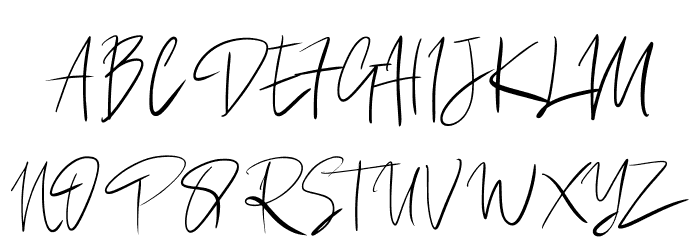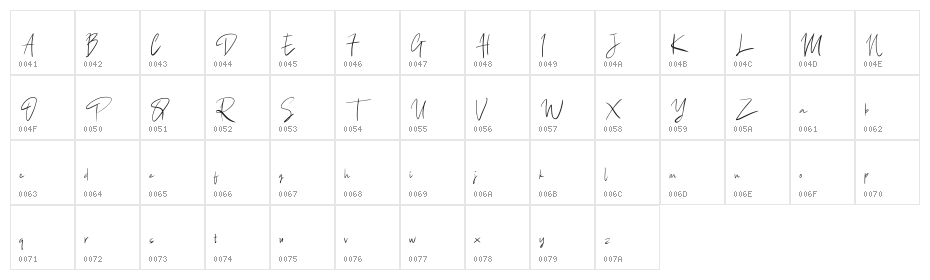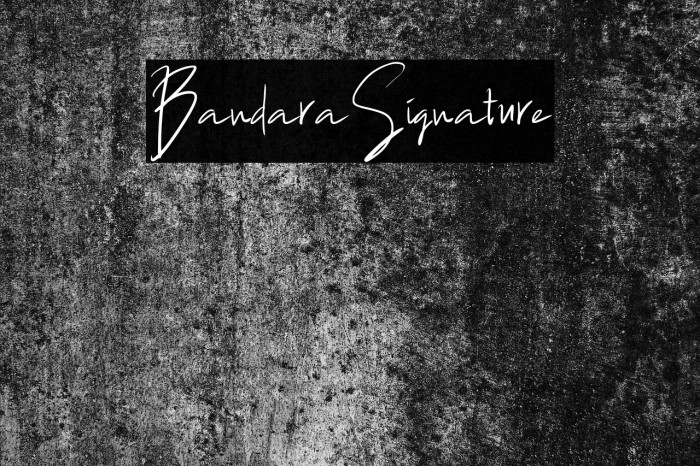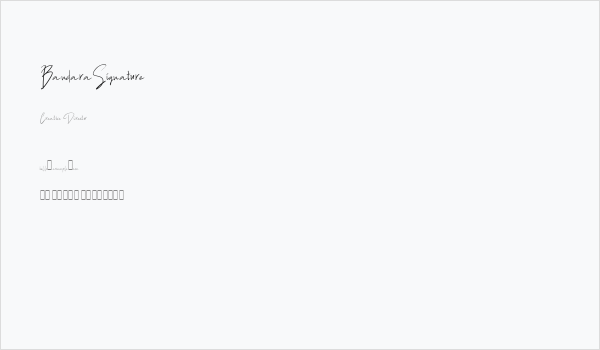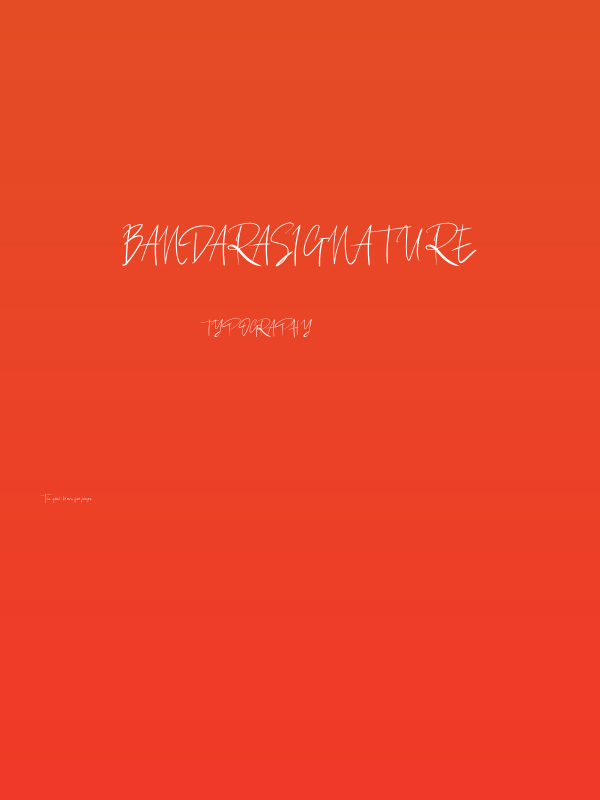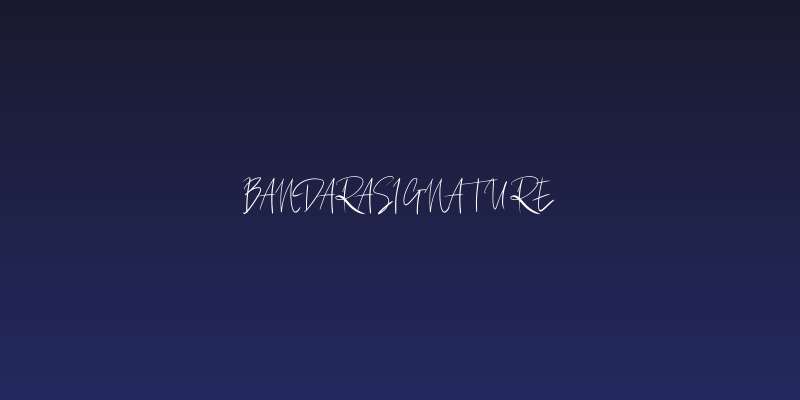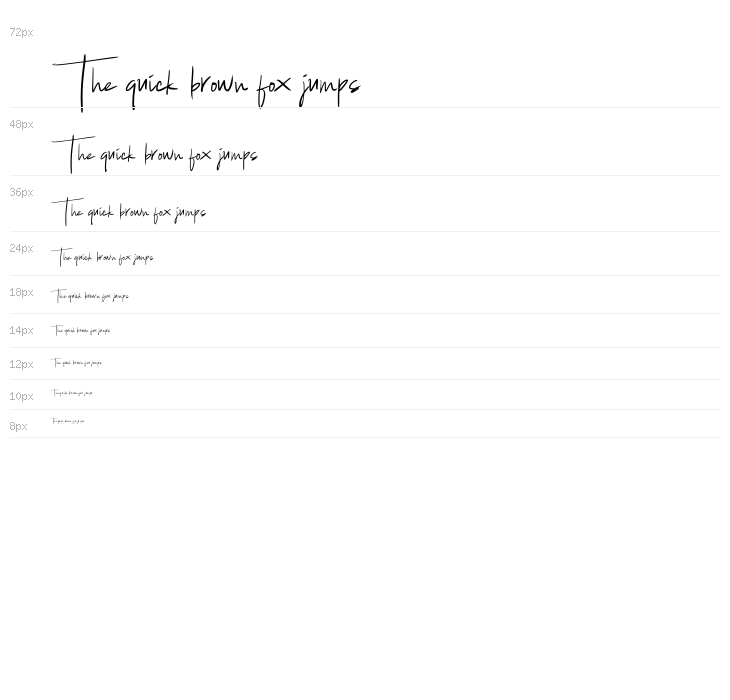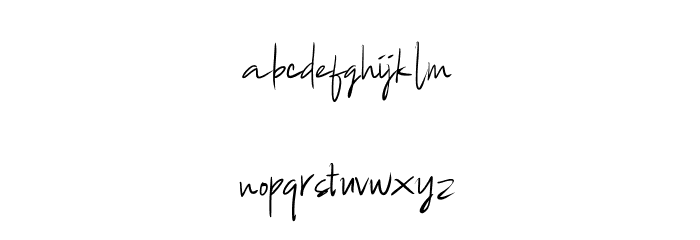
BandaraSignature Font
BandaraSignature Description
This font exudes a modern and artistic flair, characterized by its flowing, cursive style that mimics the fluidity of a handwritten signature. The uppercase letters are bold and dynamic, with sweeping strokes that convey a sense of movement and elegance. The lowercase letters maintain a consistent style, offering a more subdued yet equally expressive appearance. The numbers and special characters integrate seamlessly, maintaining the overall aesthetic. This font is perfect for projects that require a personal touch, such as invitations, branding, and creative designs.
| Use Case | Logos, Invitations, Creative designs |
| Proposed Projects | Ideal for invitations, branding, logos, and creative design projects. |